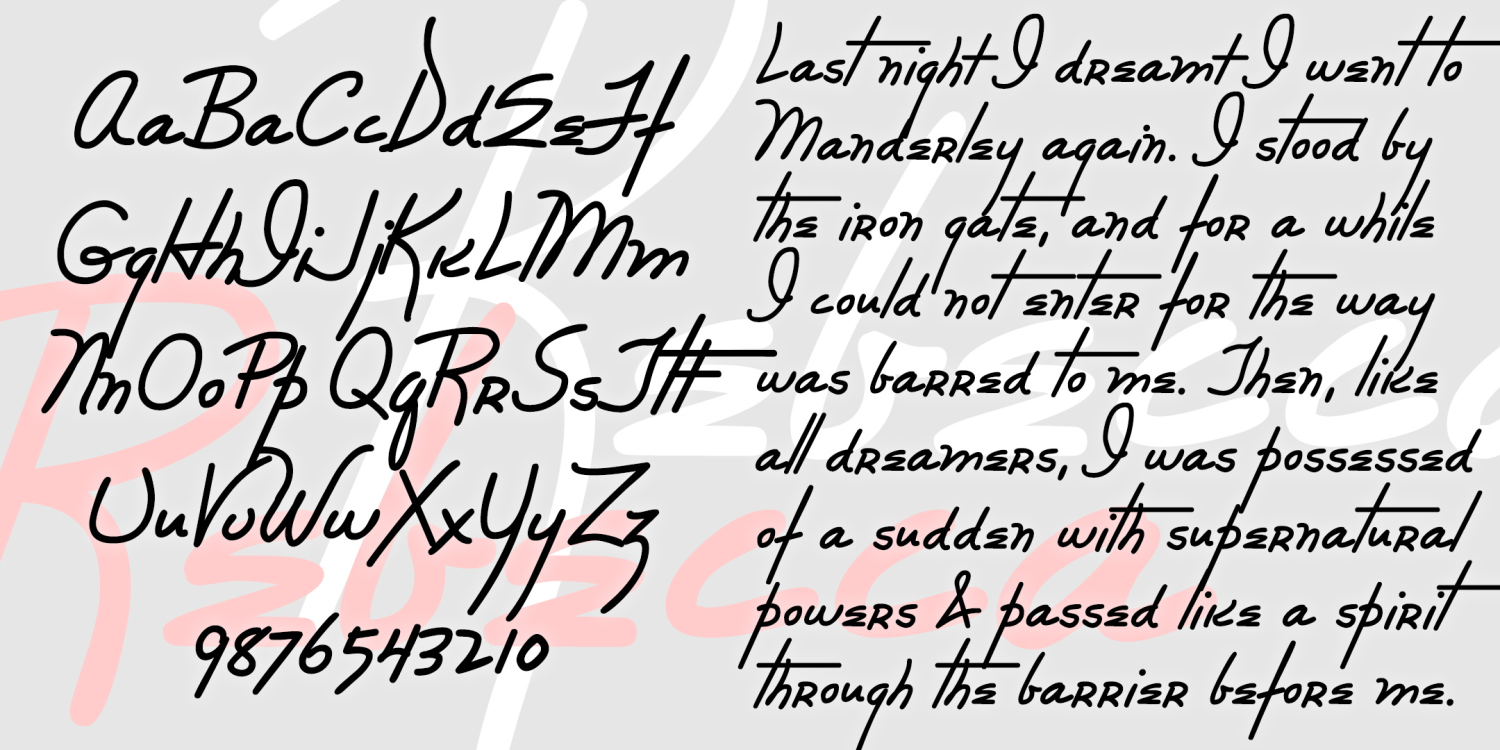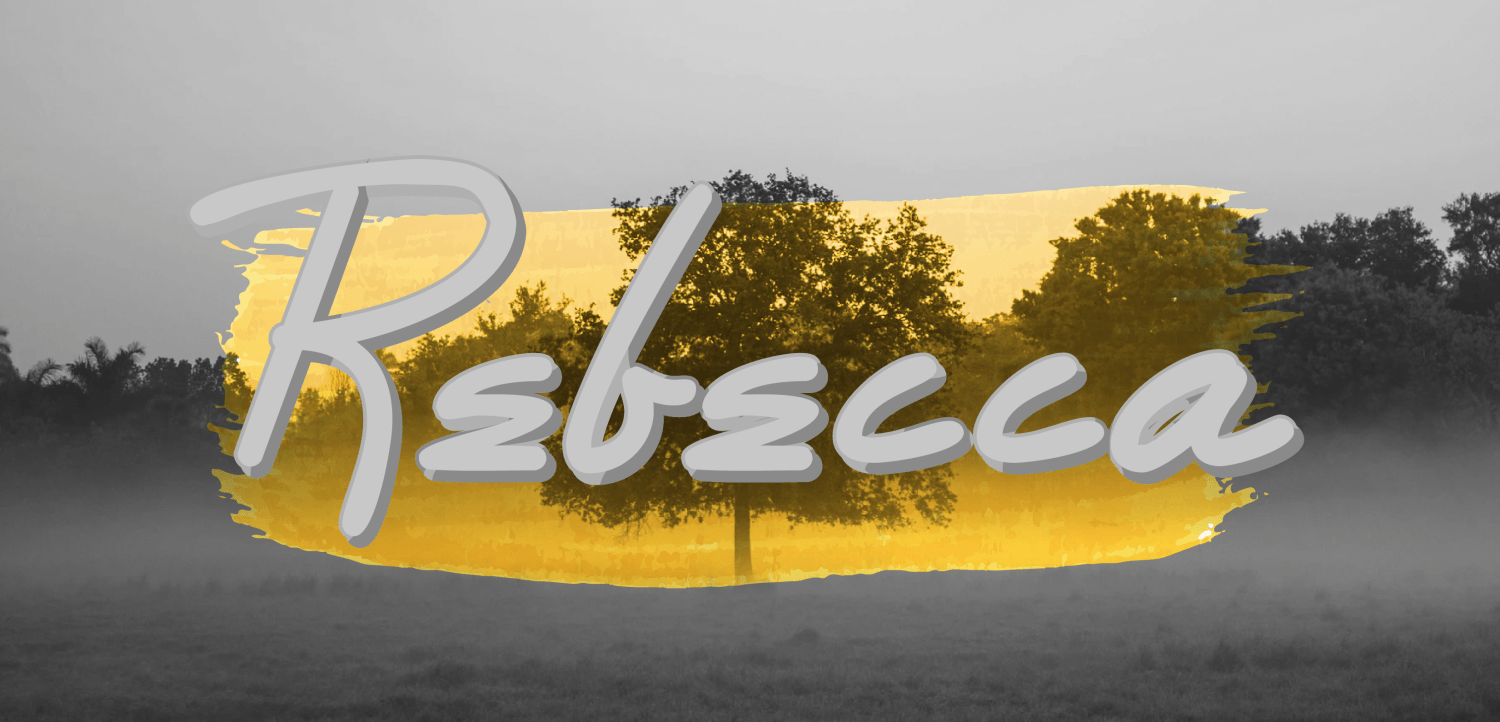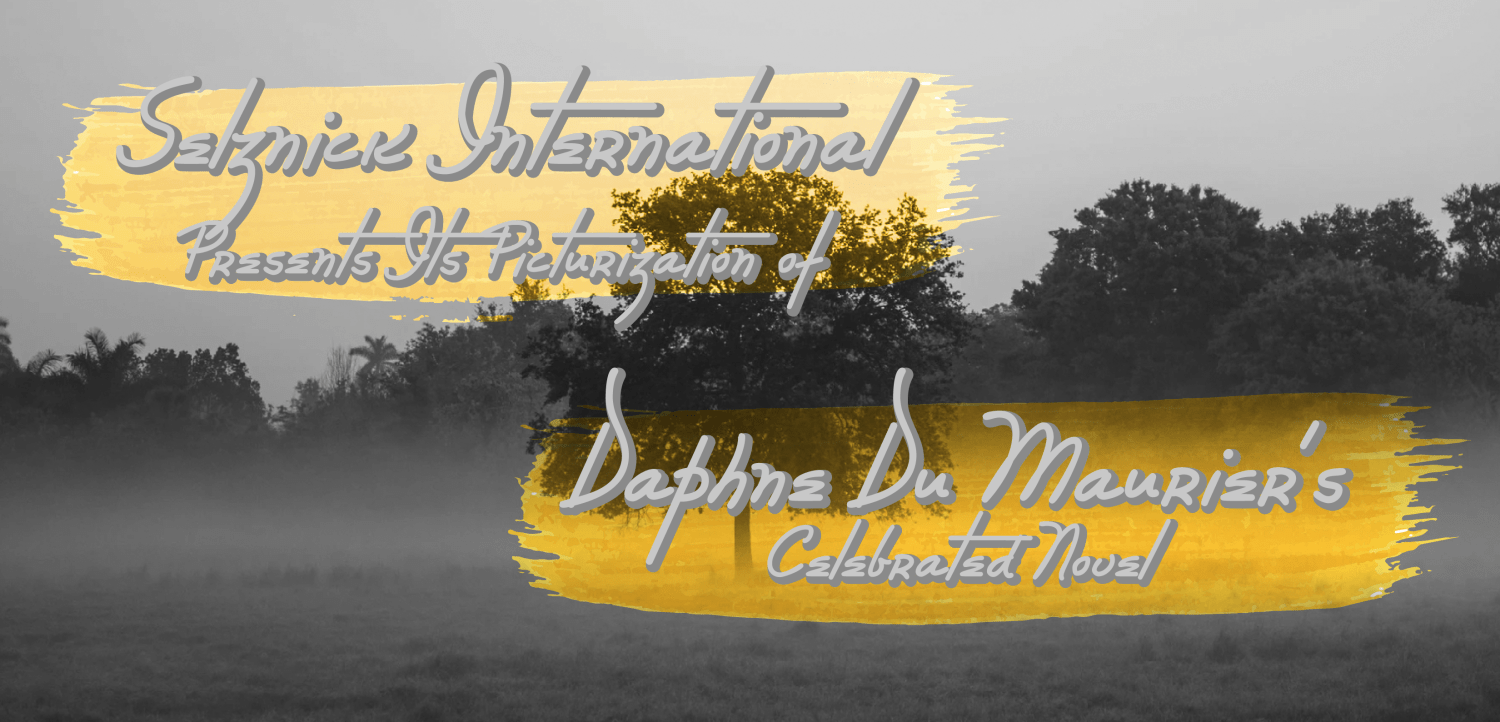
Rebecca
REBECCA suggests the handwriting of a strong, confident, stylish, and unique personality. The Rebecca font was inspired by the handwriting of the title character of the 1940 classic film of the same name, directed by Alfred Hitchcock from a novel by Daphne du Maurier. The title character is never seen onscreen; her handwriting is one of the few personal clues to this character who looms over everything else. The handwriting of several women was "auditioned" for the film before Helen Amigo's was selected as the model.